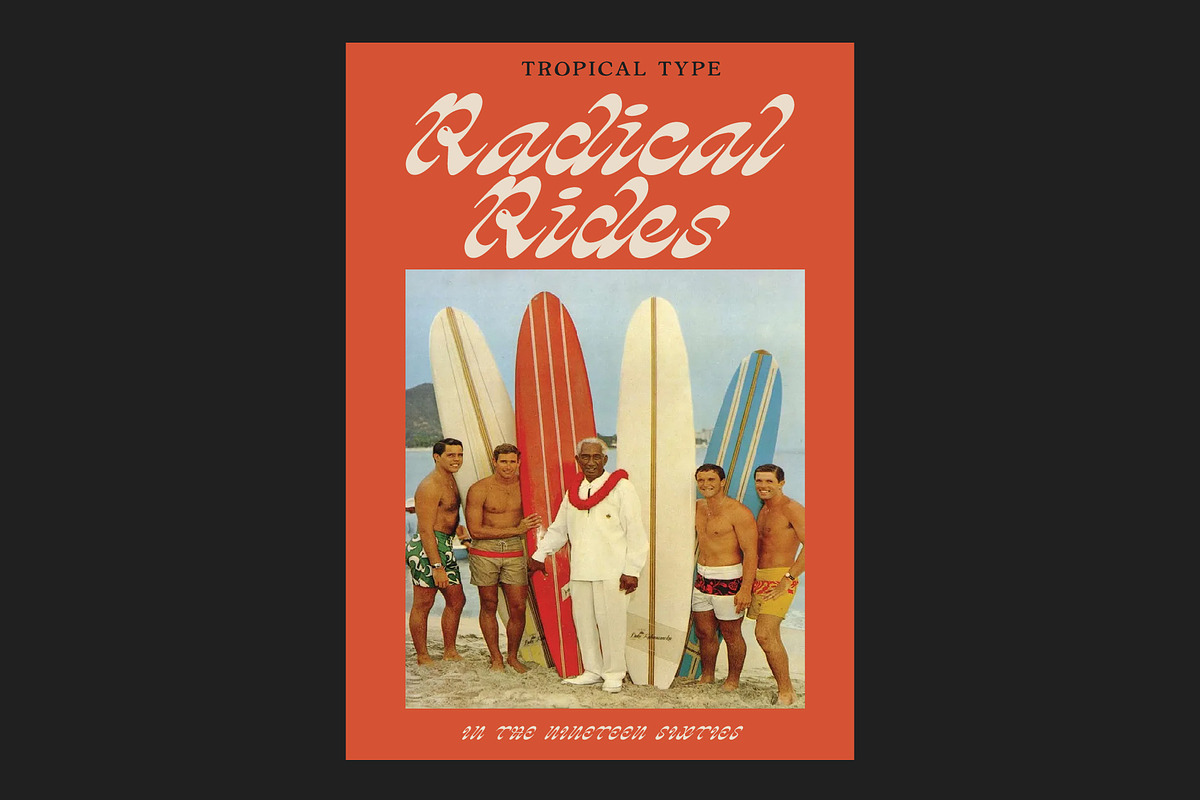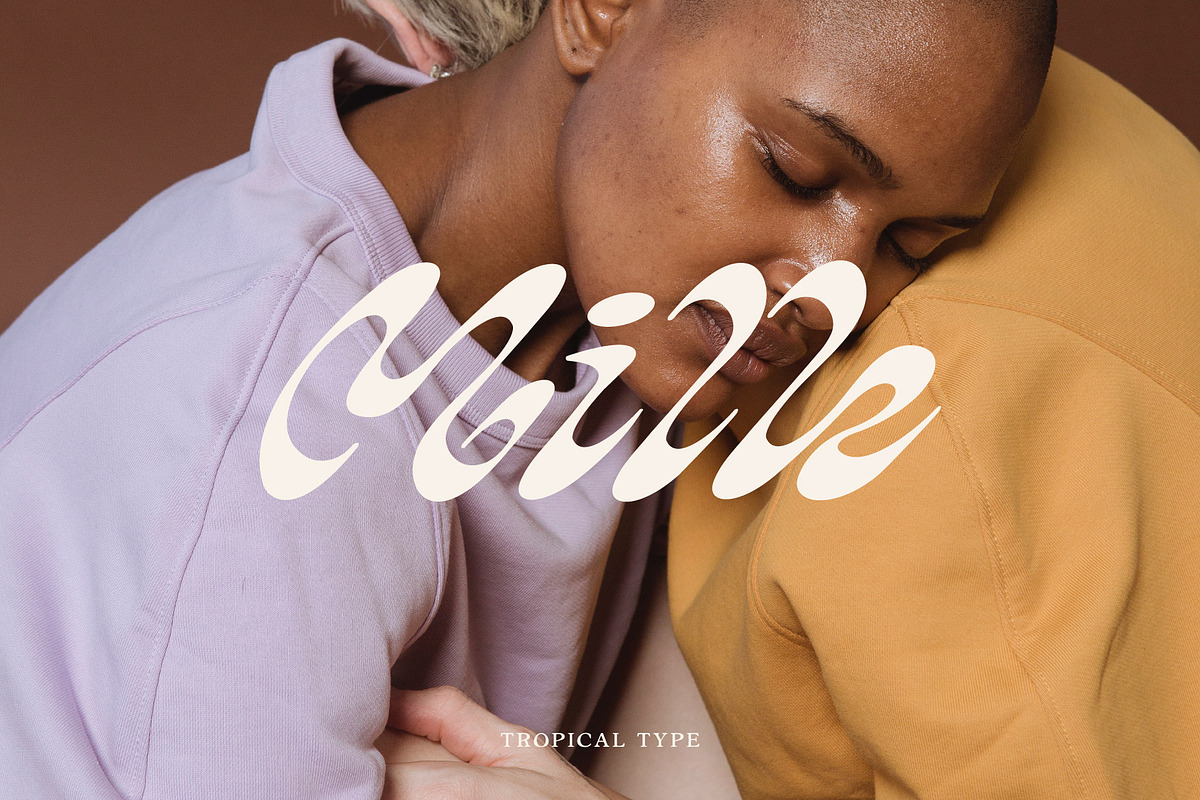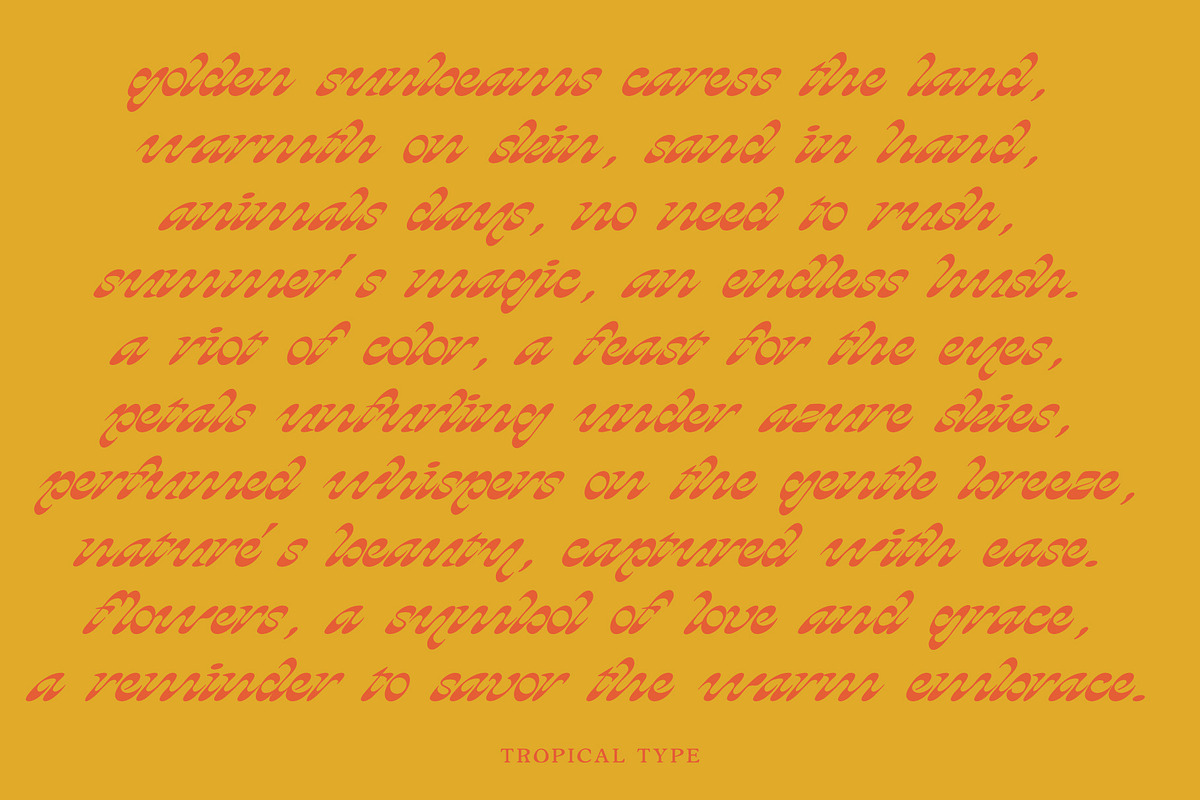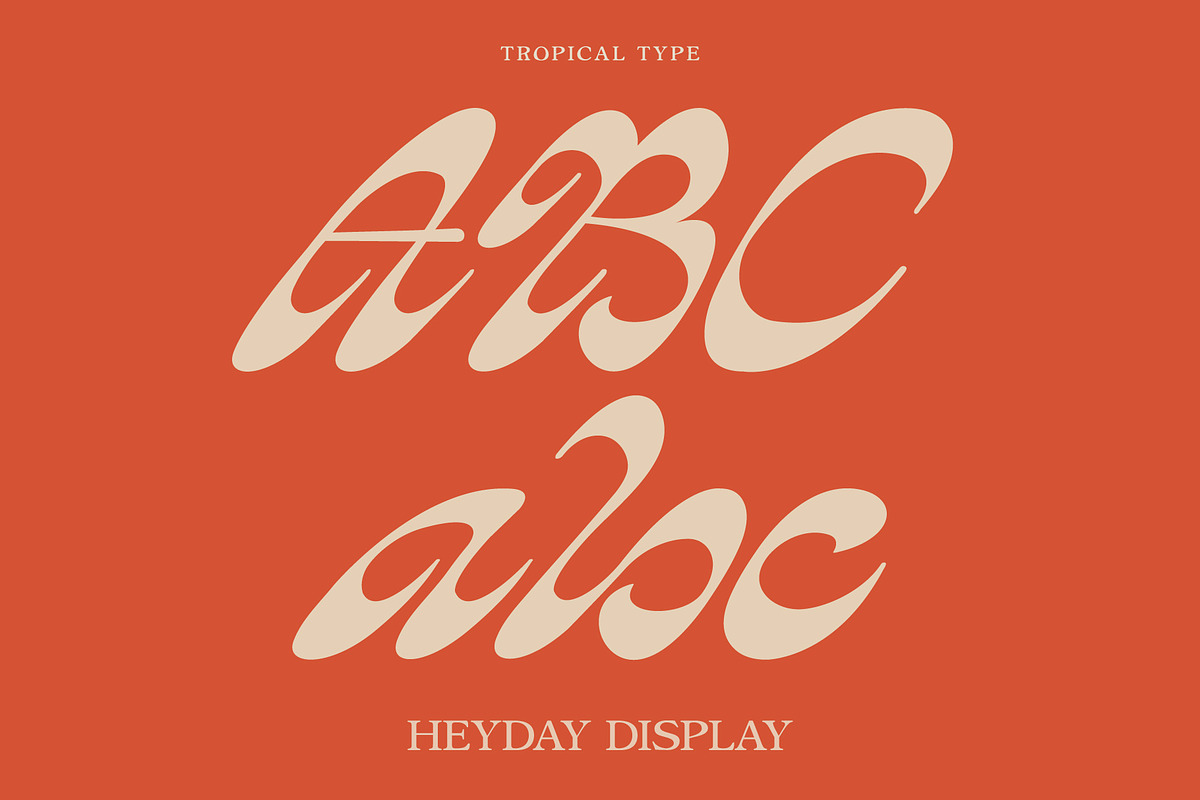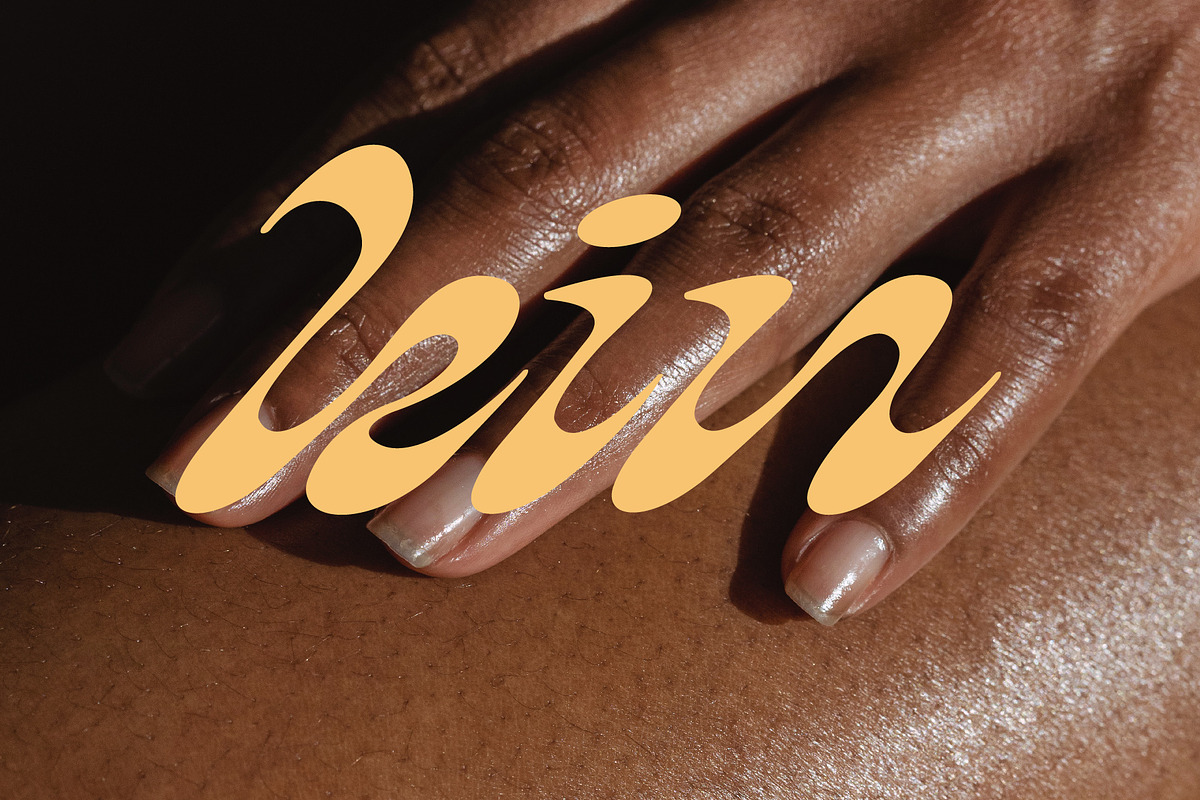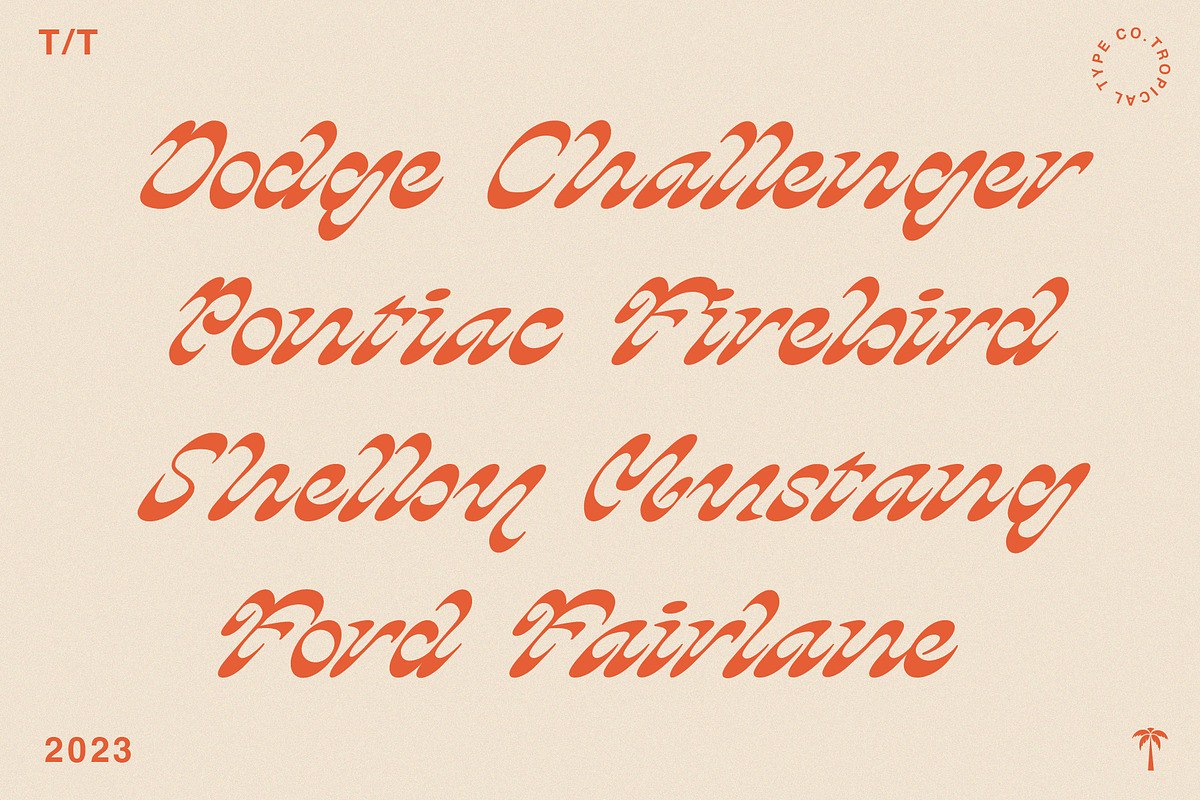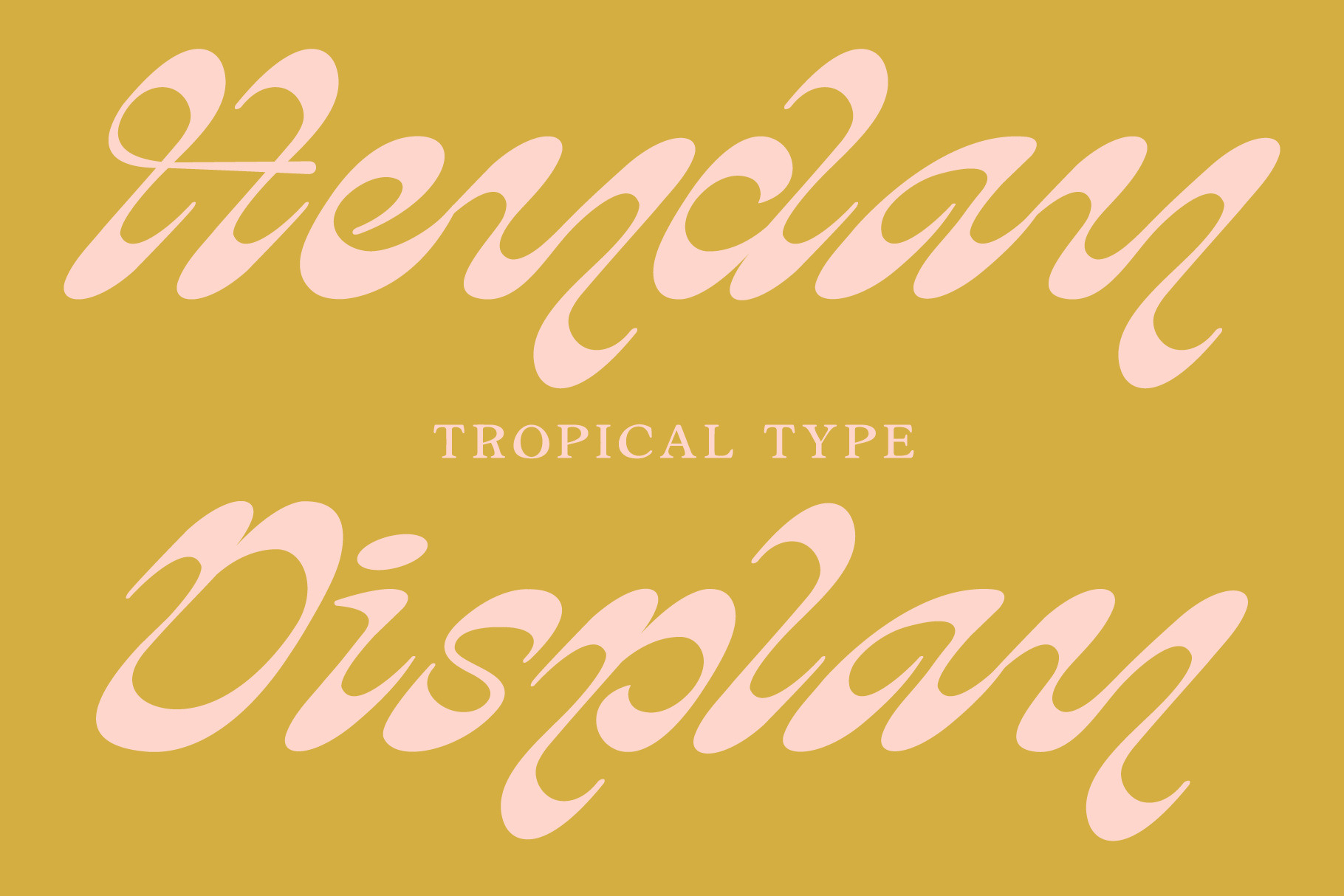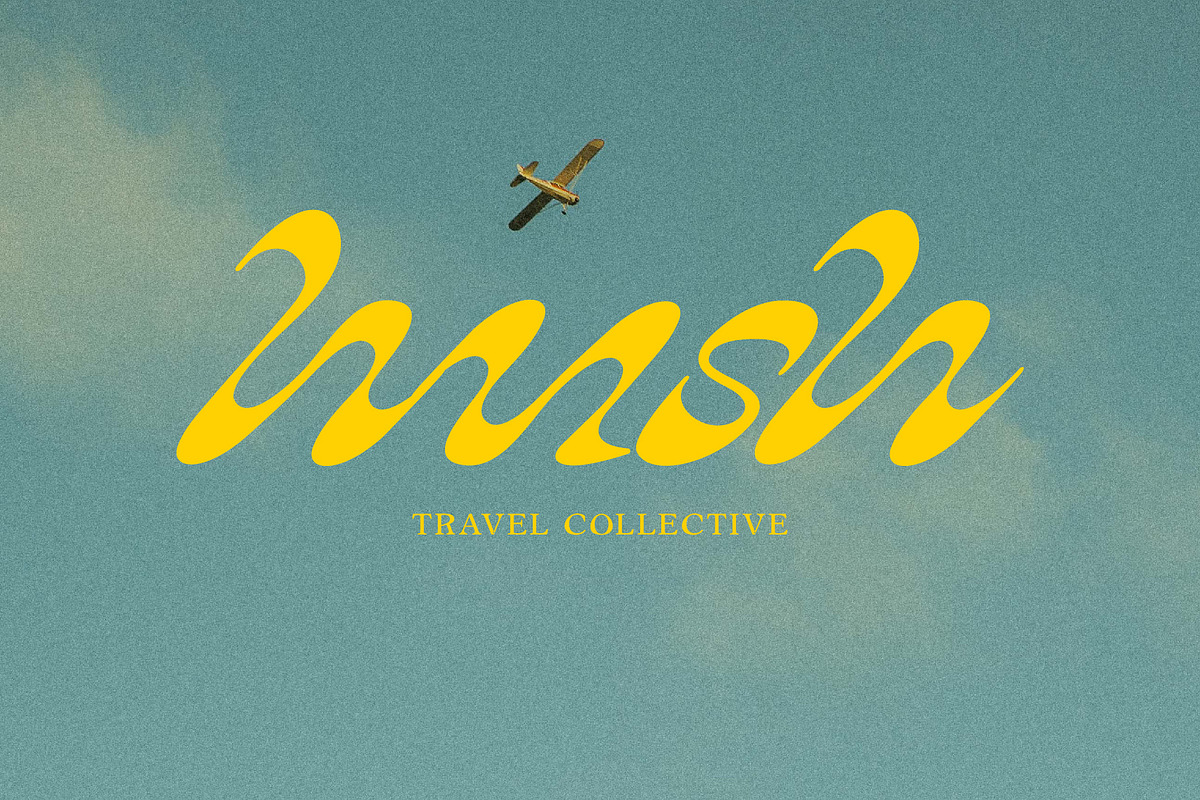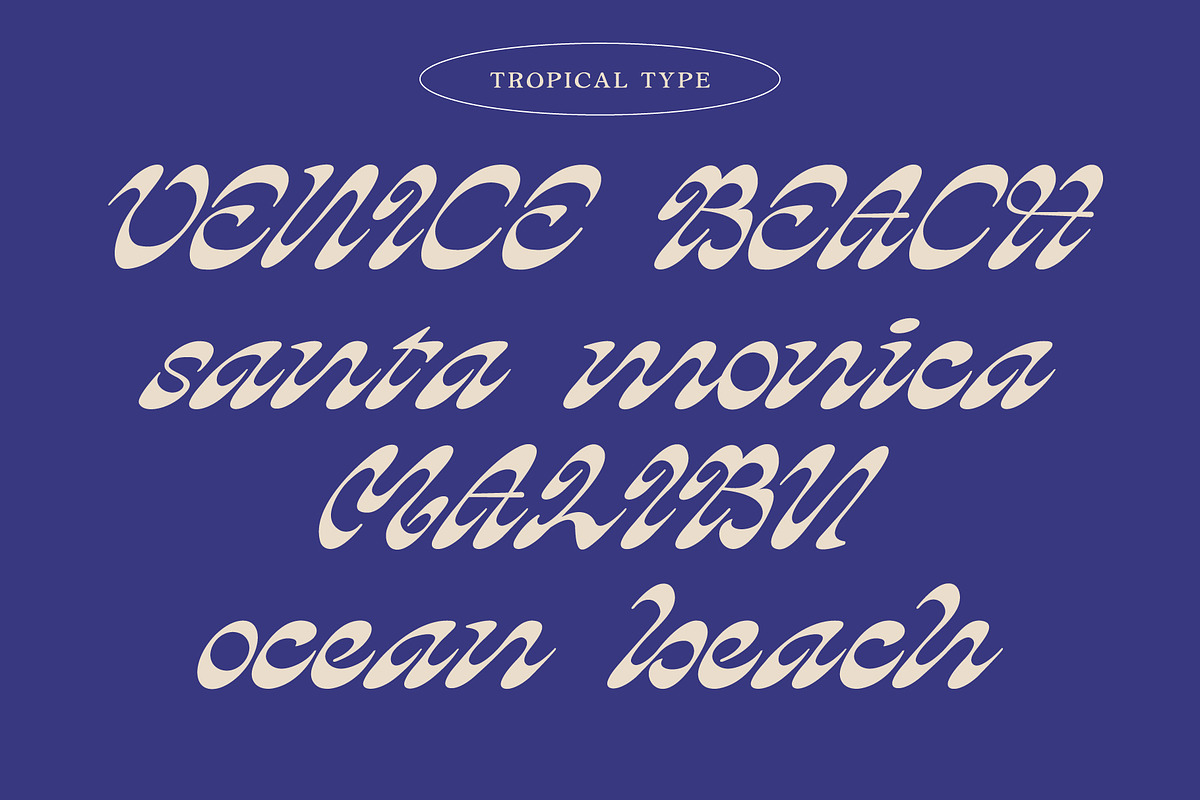
HEYDAY DISPLAY FONT
Heyday Display is all about flow. Smooth italic letters create a groovy nostalgia that oozes style. The ornate uppercase cements this font as purely display and makes it a retro typeface to remember.